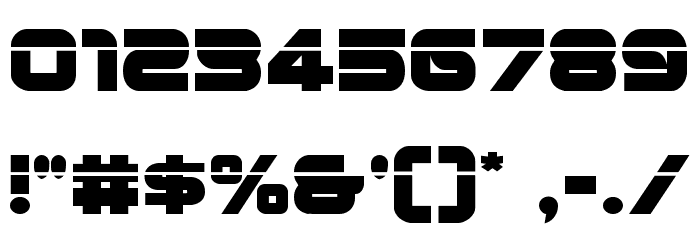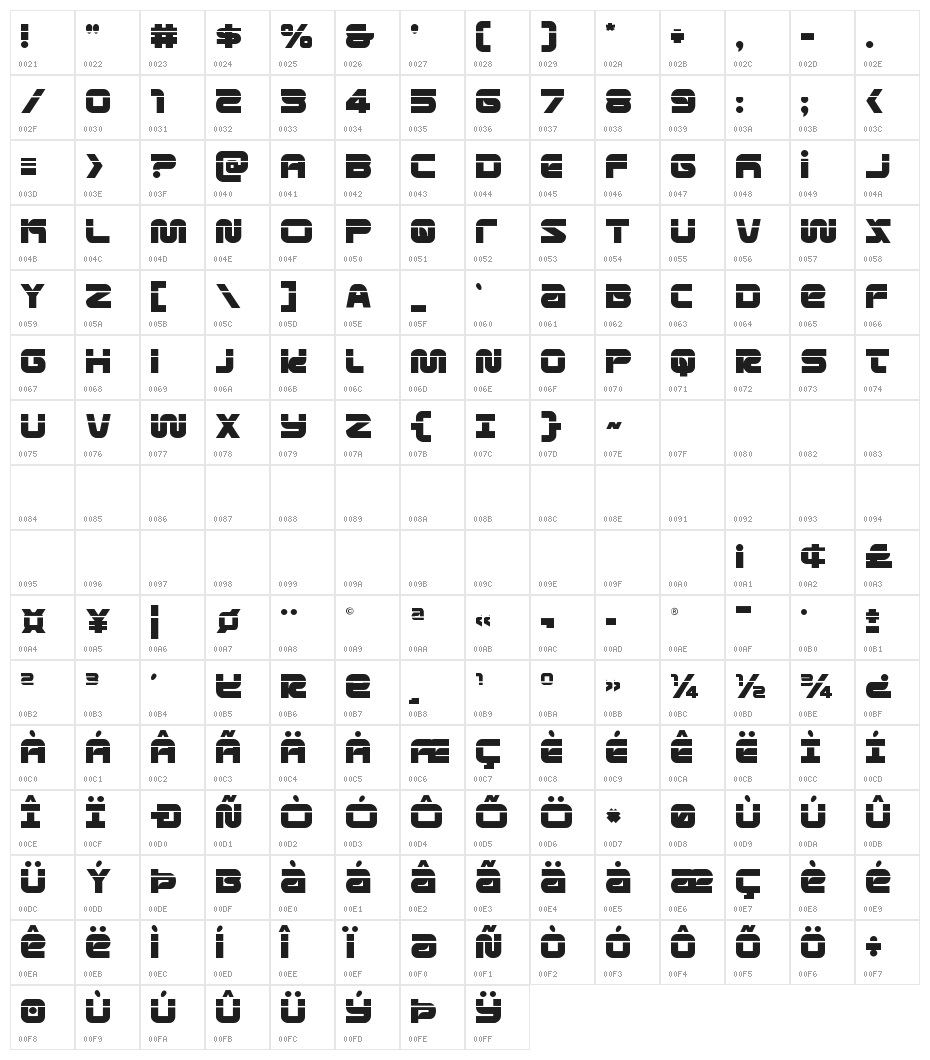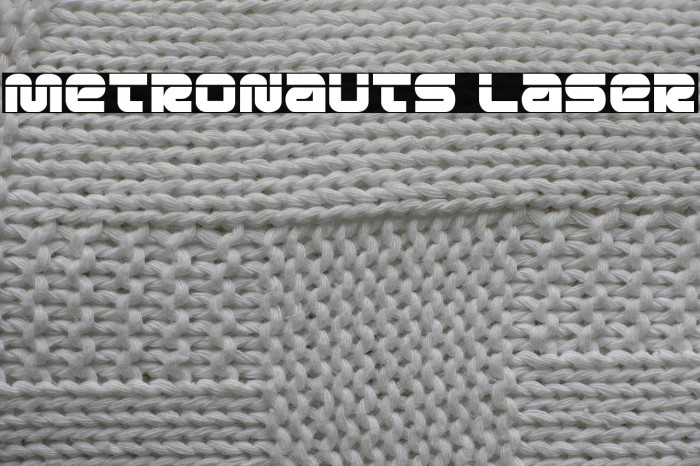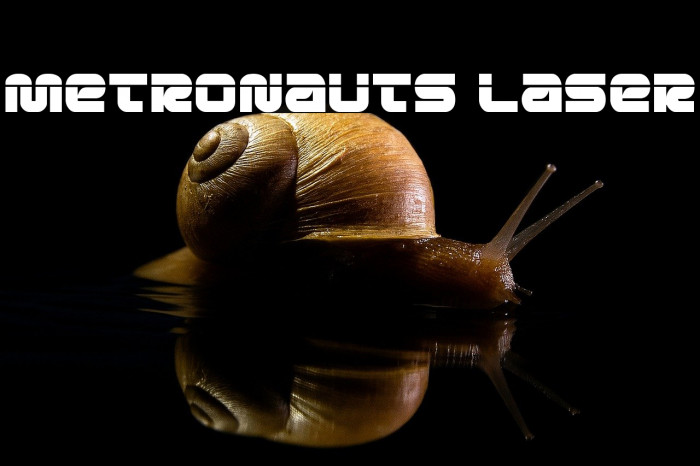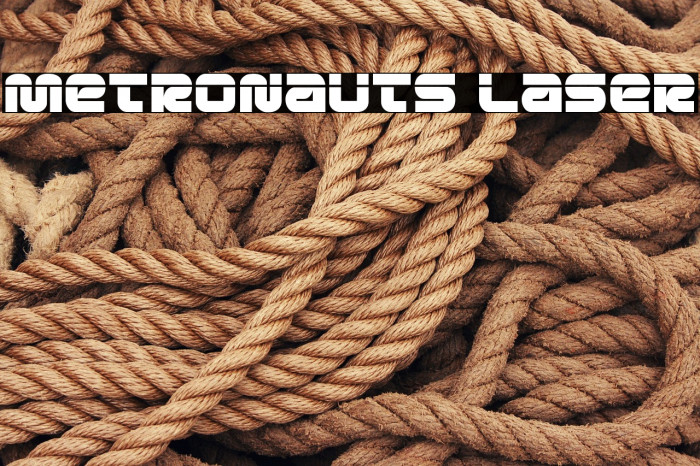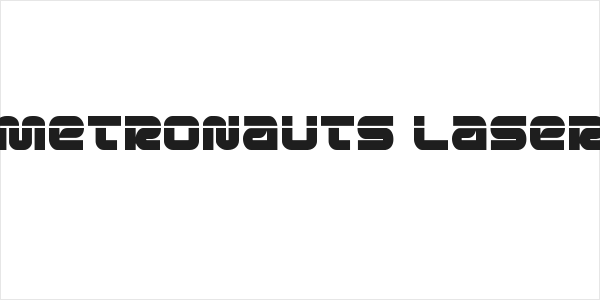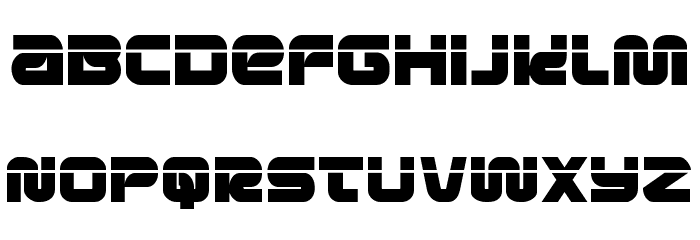
Metronauts Laser Font
Metronauts Laser Description
This font features a futuristic and bold design with geometric shapes and a strong presence. The characters are constructed with thick, block-like forms that give it a robust and industrial feel. The uppercase letters are uniform in height, while the lowercase letters maintain a similar structure, creating a cohesive look. Numbers and special characters follow the same design principles, ensuring consistency across all elements. The font's style is reminiscent of digital and sci-fi themes, making it ideal for projects that require a modern and edgy aesthetic.
Proposed ProjectsIdeal for sci-fi movie posters, video game titles, tech branding, and futuristic-themed designs.